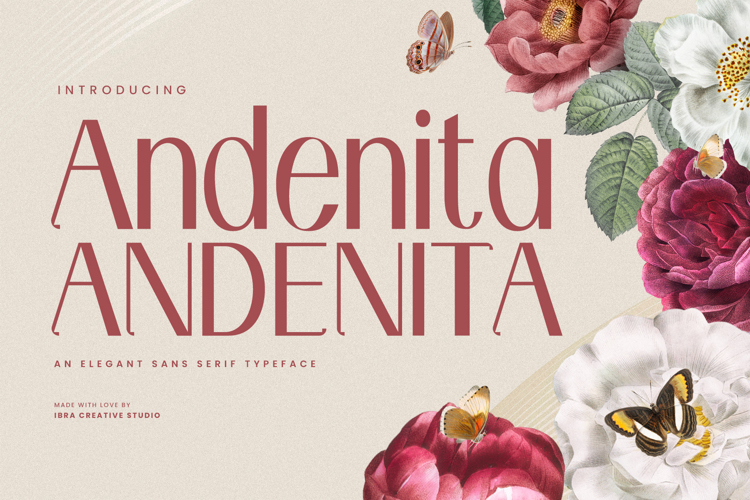
Andenita Font
Andenita, an elegant sans-serif typeface, effortlessly blends sophistication with modern simplicity. Its refined letterforms exude a timeless charm, featuring clean lines and balanced proportions that lend a sense of versatility to any design project.